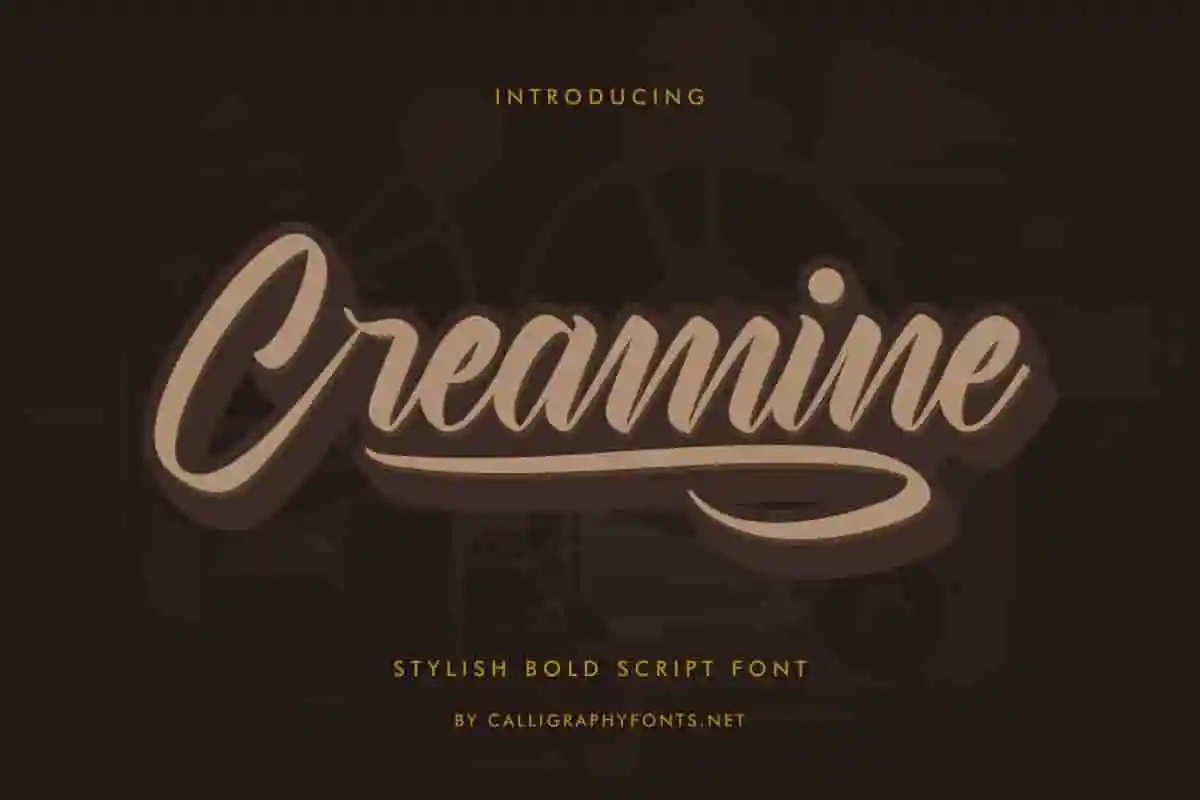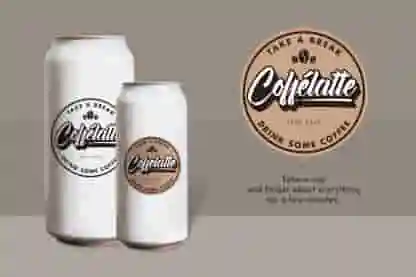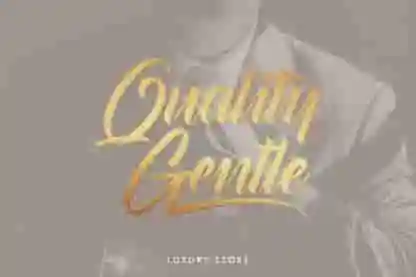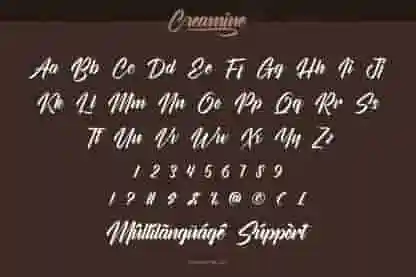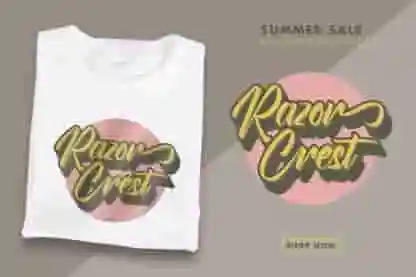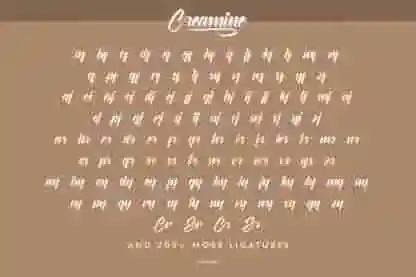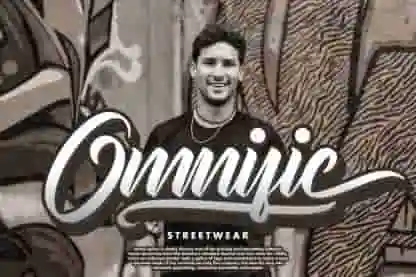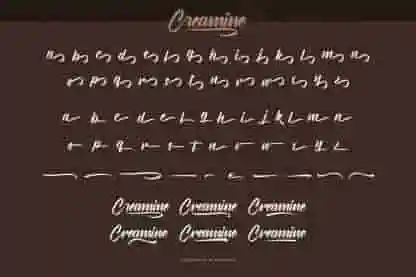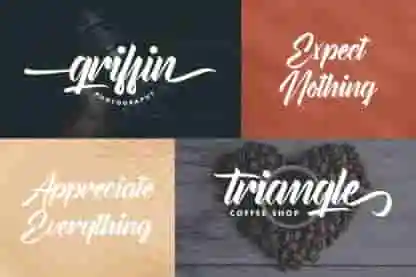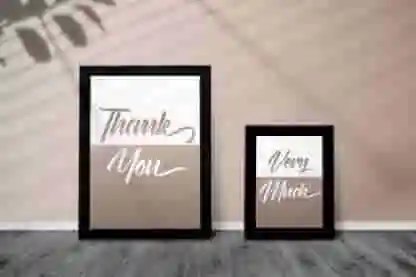
Creamine Font
Creamine Font is an exclusive classic calligraphy font designer by CalligraphyFonts.net. Creamine font will be stunning for logotype, invitation, flyer etc
Creamine Font is a classic lettering calligraphy font. It has unique looks that are beautiful, modern, elegant, luxury, lettering and sophisticated brush font.